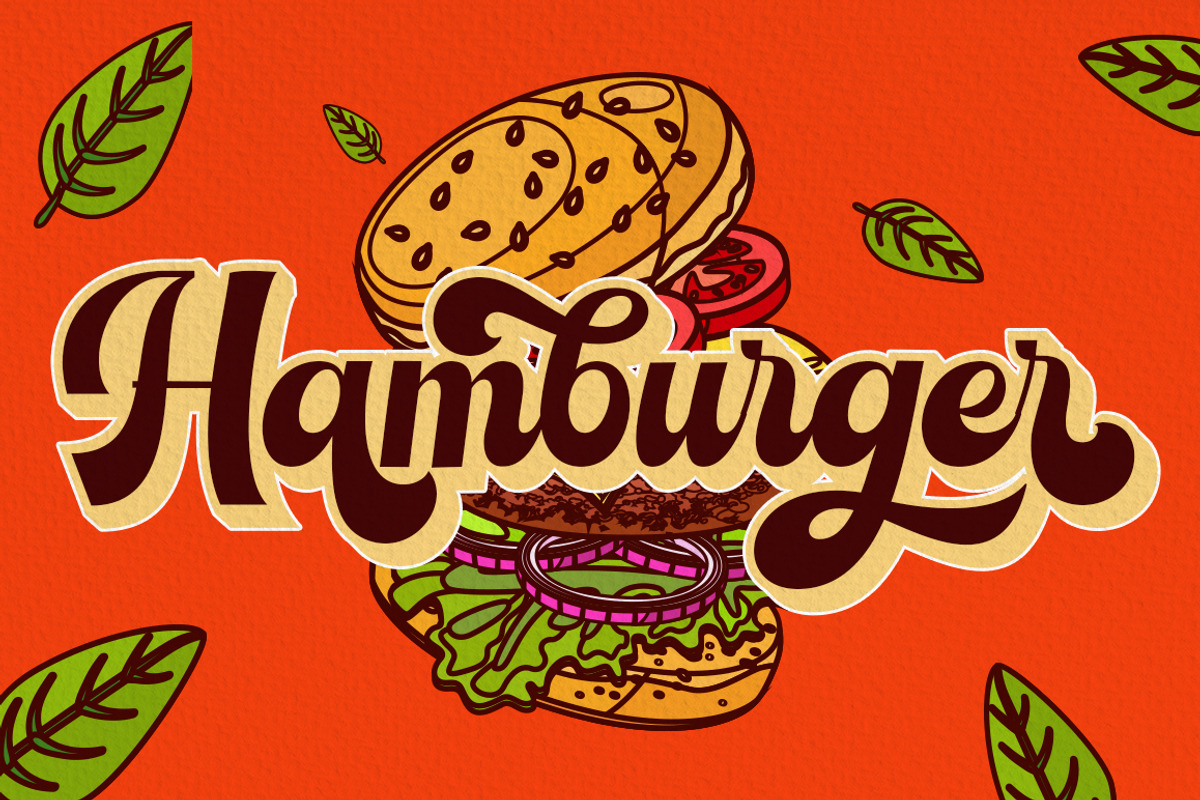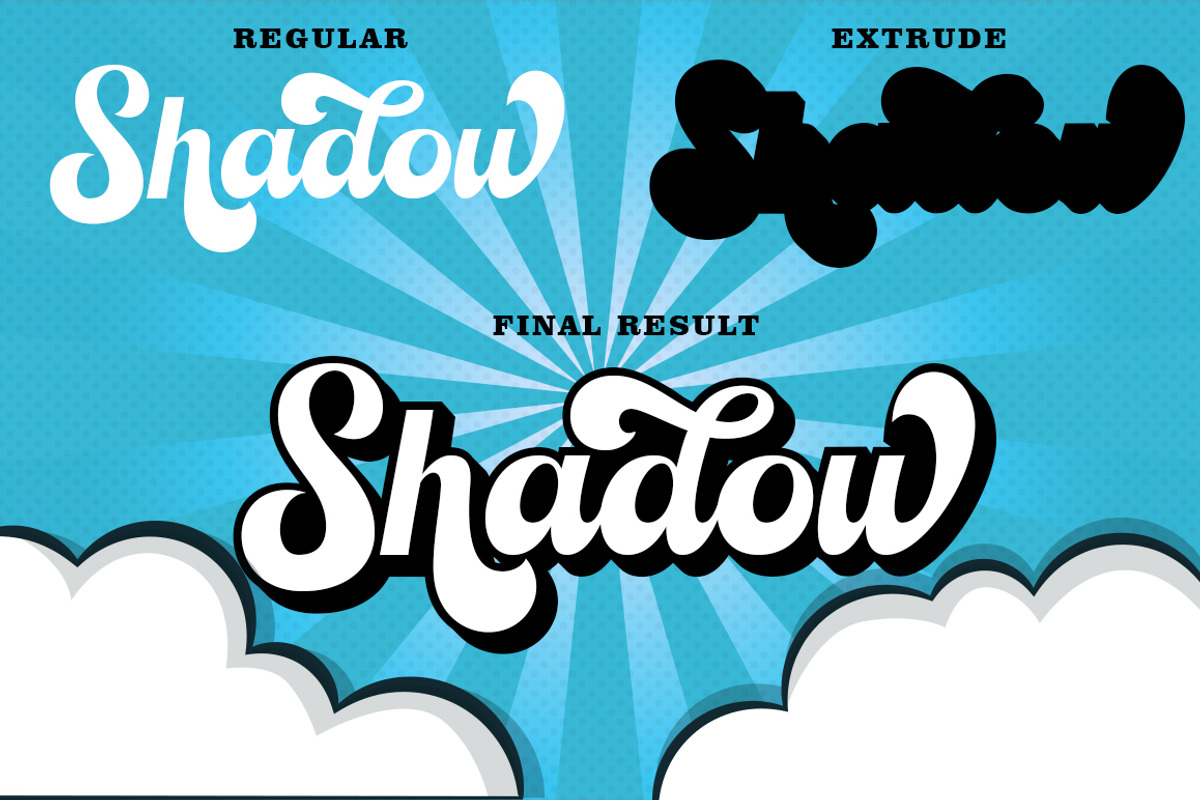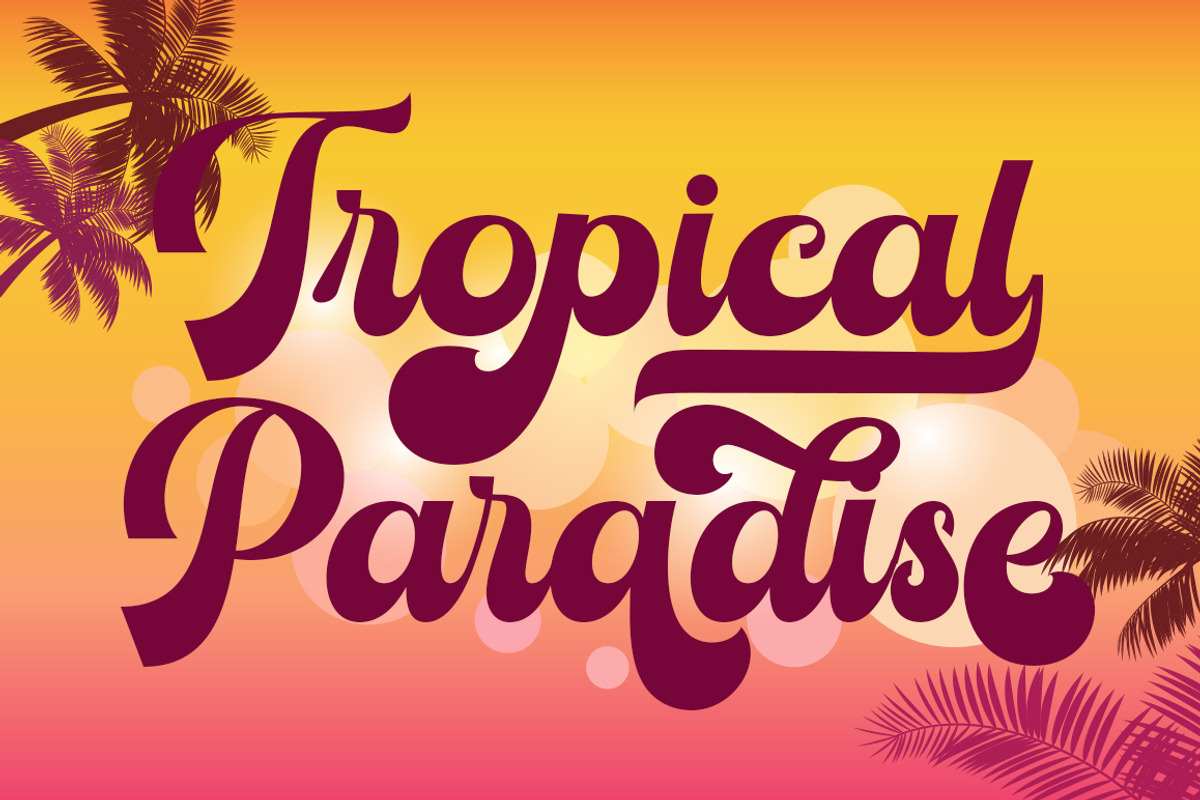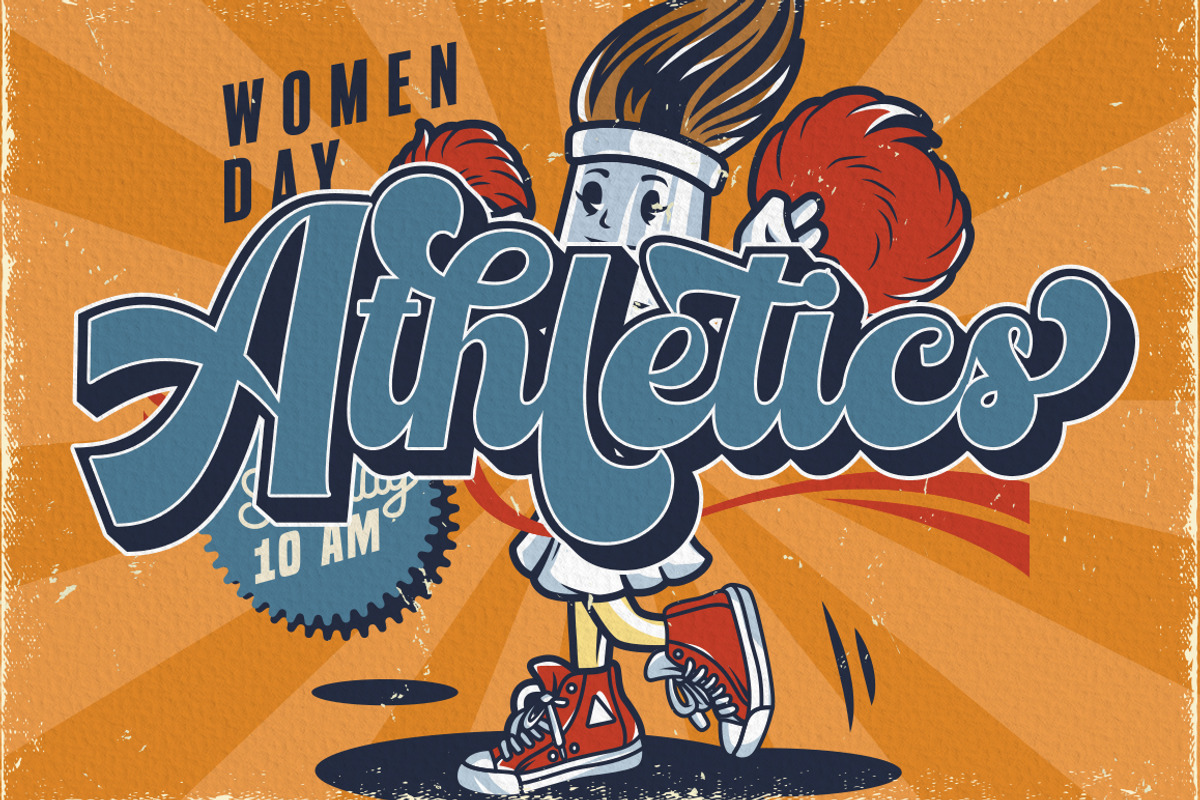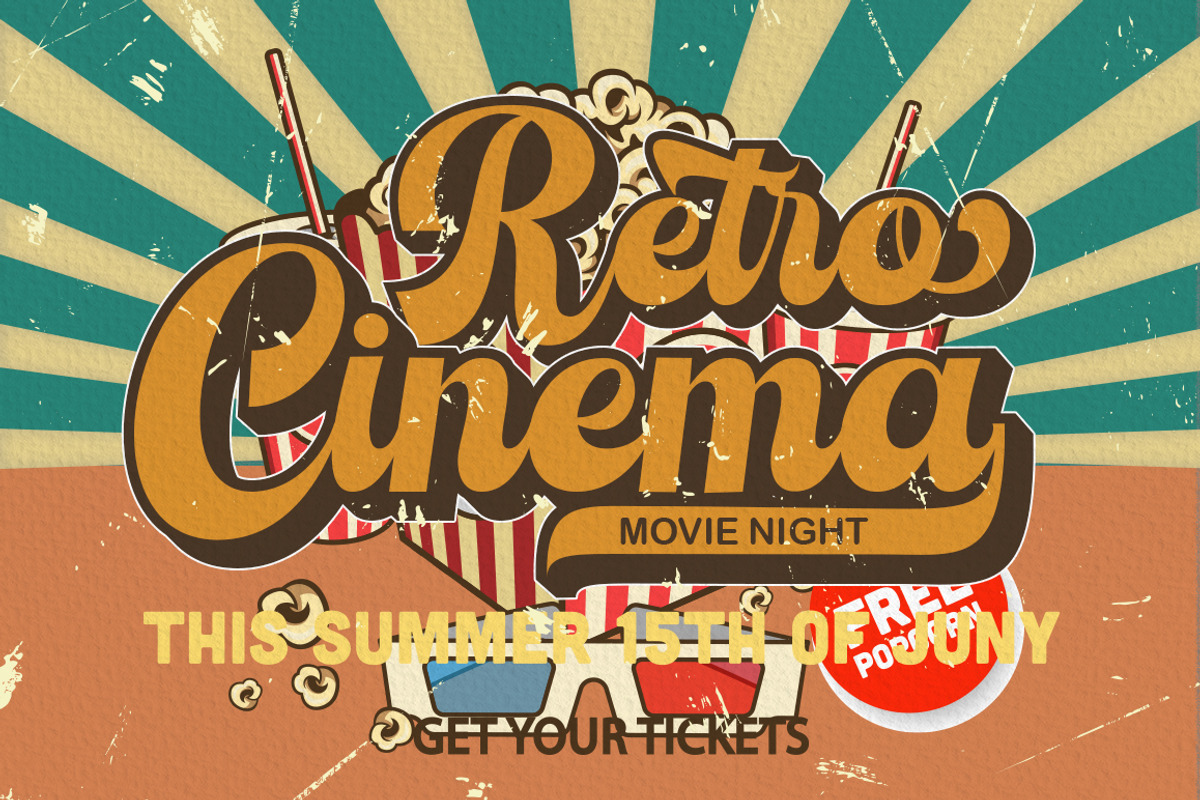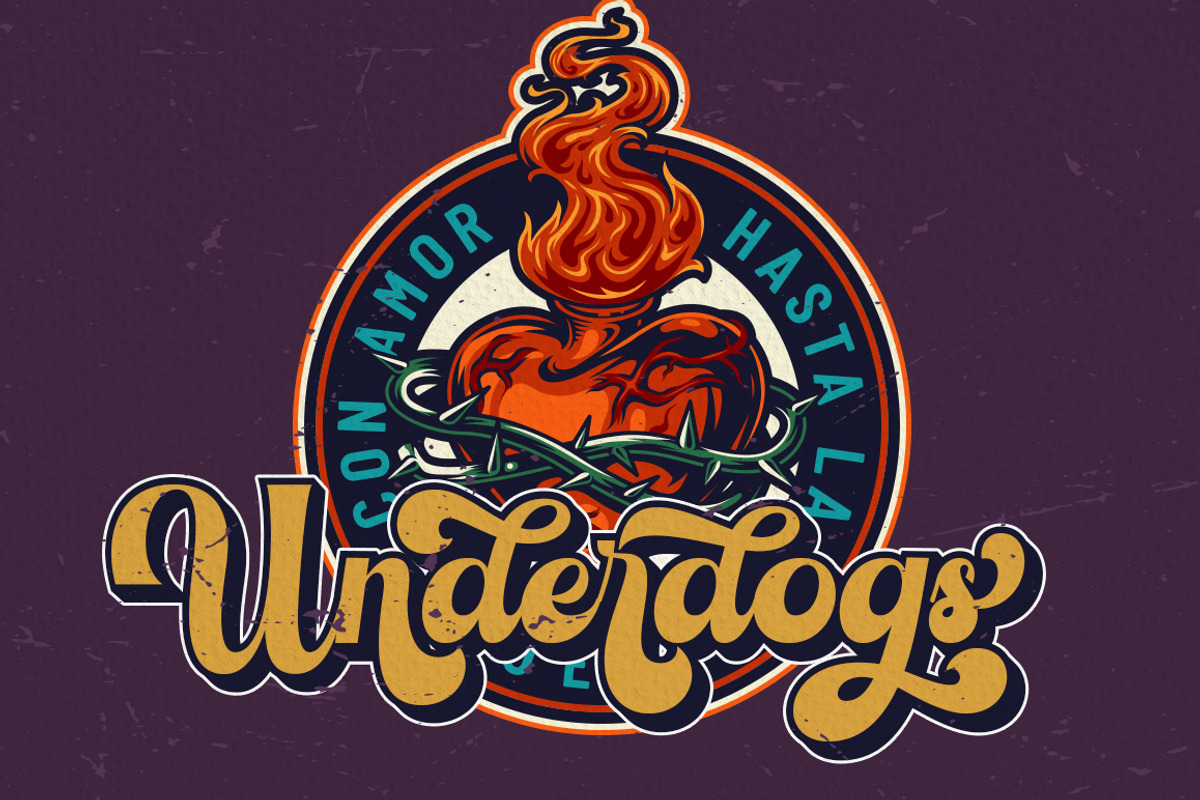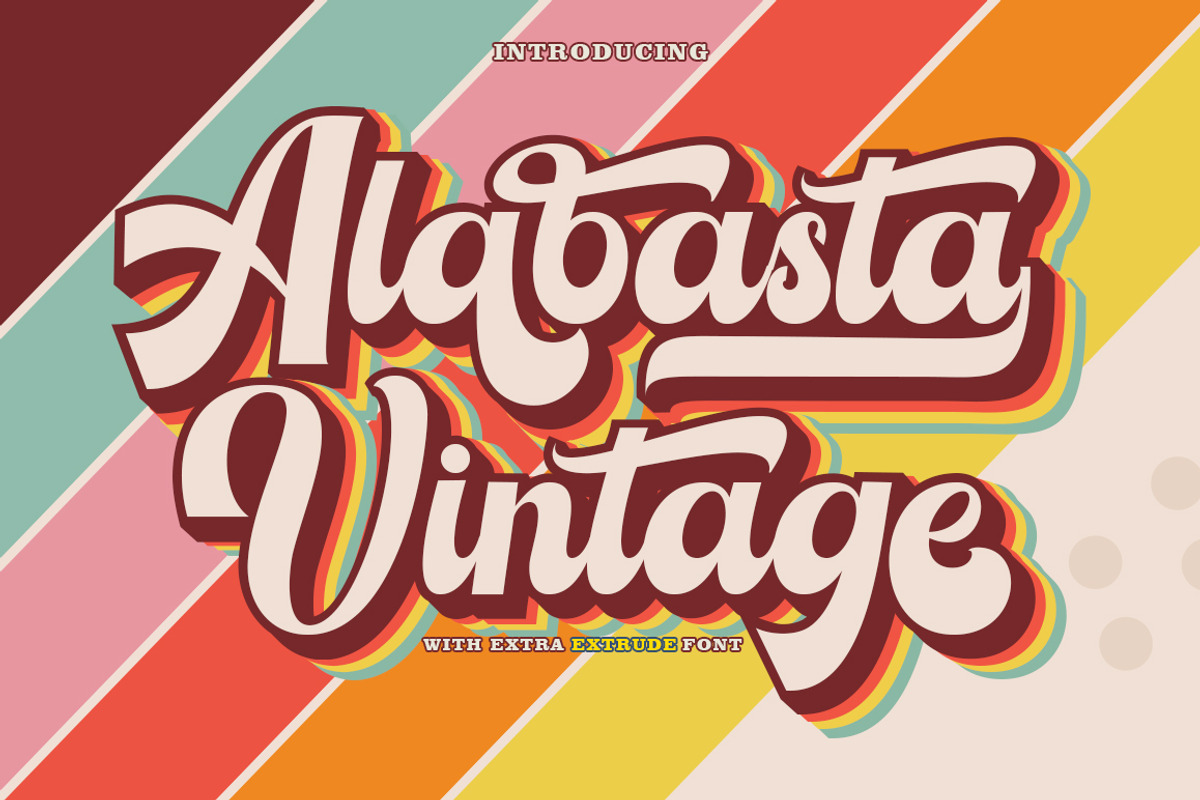
Alabasta Vintage
Introducing Alabasta Vintage, A Retro Bold Script font. It was inspired by retro typography designs in the 70's. OpenType features with Stylistic Alternates, Contextual Alternate and ligatures in some characters that allows you to mix and match pairs of letters to fit your design. Alabasta Vintage also comes with Extrude Font version, so you can create your retro effect font in ease.
Alabasta Vintage is perfectly suitable for making to be applied especially in logos, and the various other formal forms such as invitations, labels, logos, magazines, books, greeting / wedding cards, packaging, fashion, make up, stationery, novels, labels or any type of advertising purpose.